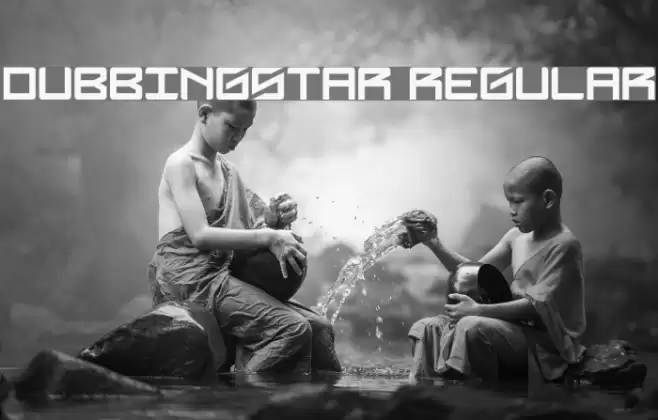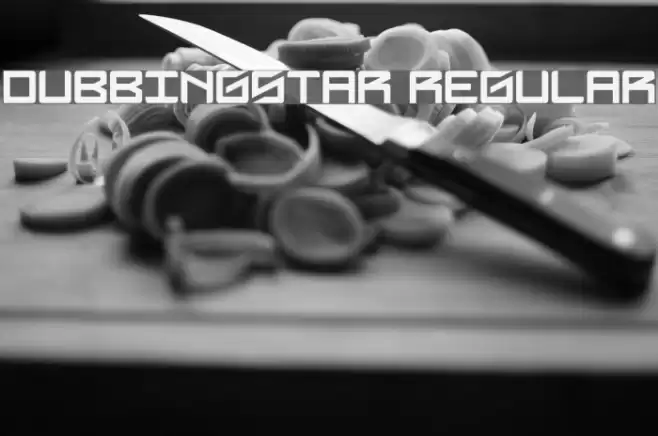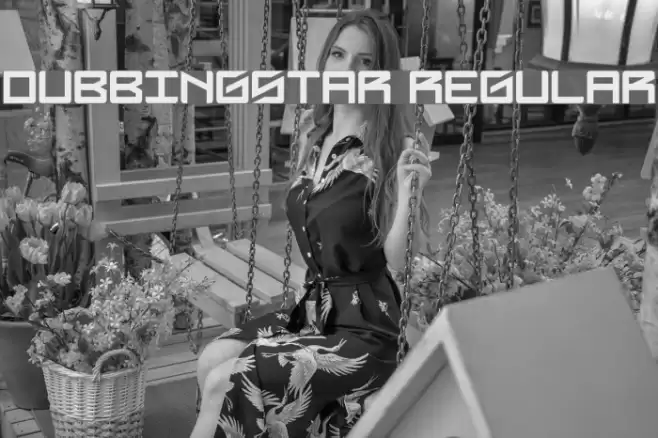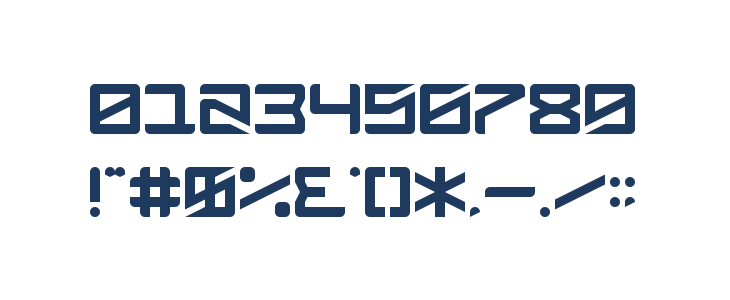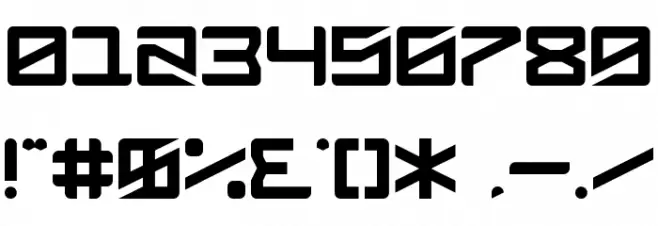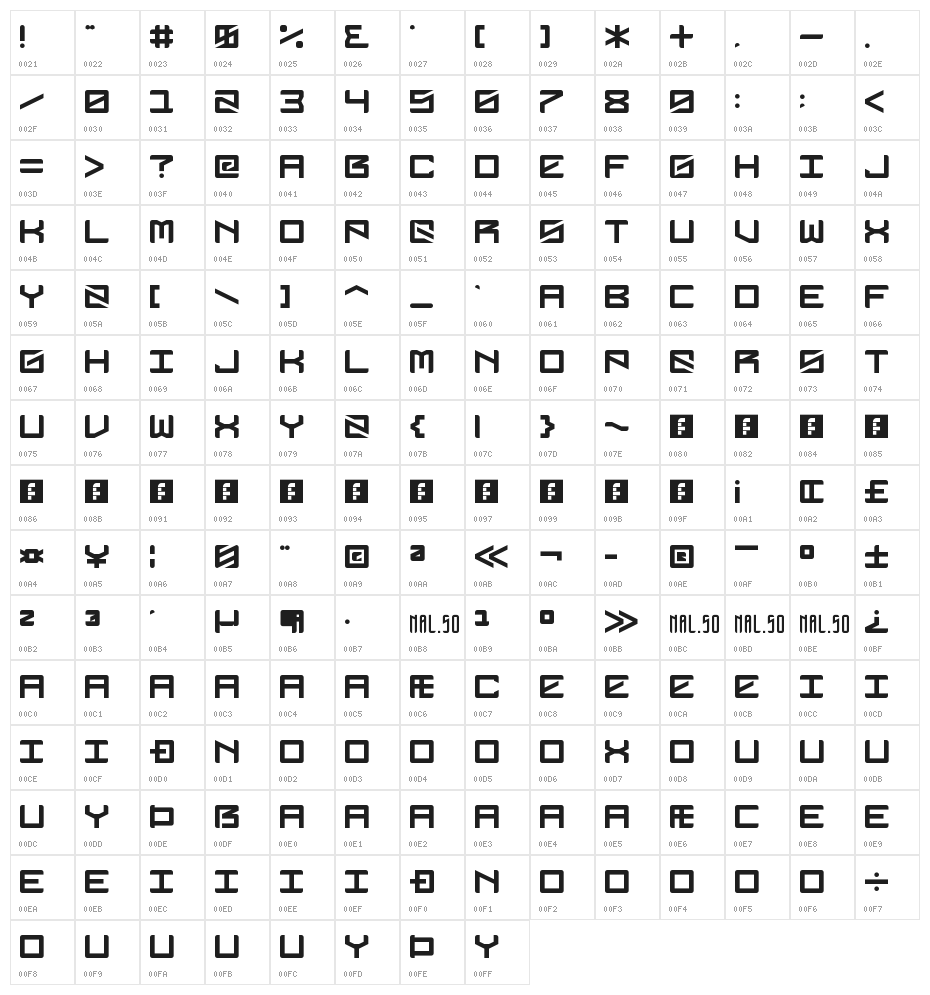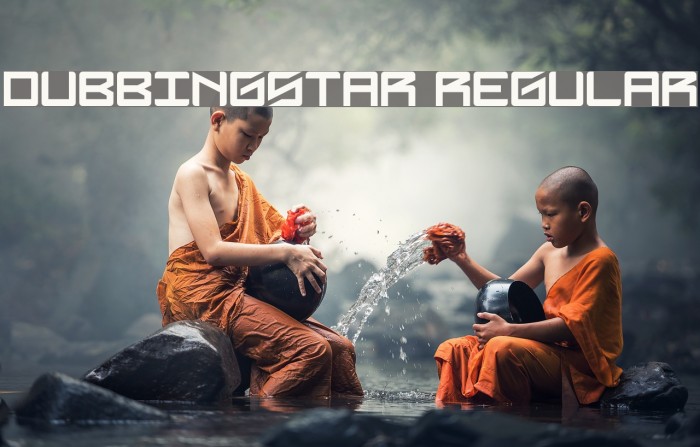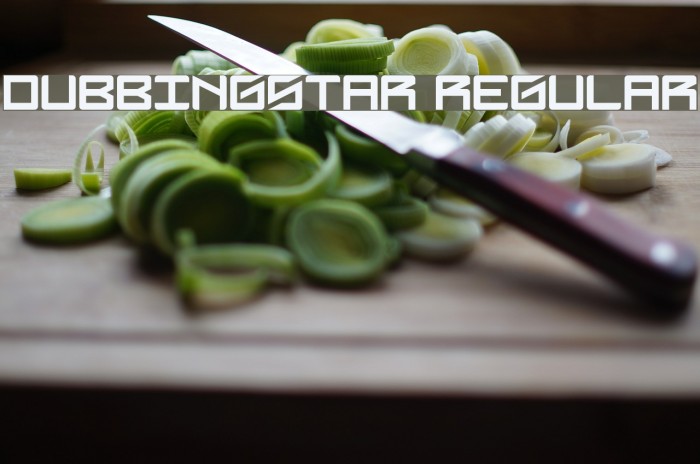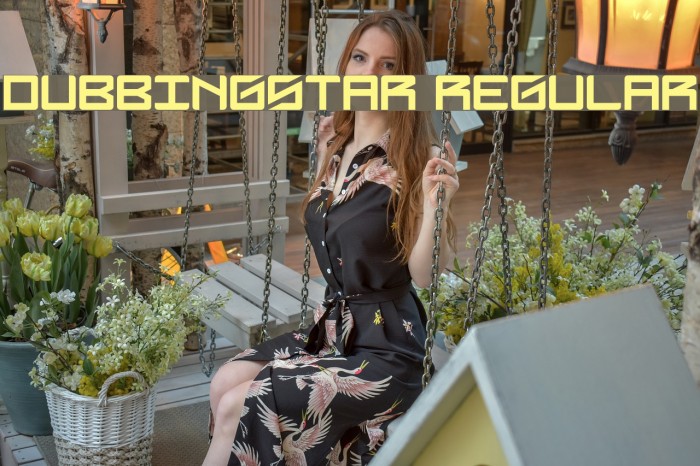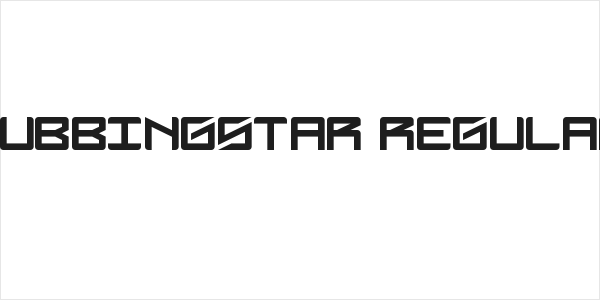
DubbingStar Regular Font
DubbingStar Regular Description
This font features a bold and futuristic design with geometric elements that create a sense of movement and modernity. The characters are constructed with sharp angles and clean lines, giving it a distinct and edgy appearance. The uppercase letters are particularly striking, with unique cuts and slashes that add to the dynamic feel. The numbers and special characters maintain this style, ensuring consistency across all glyphs. The font's overall aesthetic is both innovative and versatile, making it suitable for a variety of creative applications.
A bold, futuristic font with geometric and dynamic design elements from Uncategorized fonts.
- Proposed Projects: Ideal for sci-fi themed projects, tech branding, video game titles, and futuristic posters.